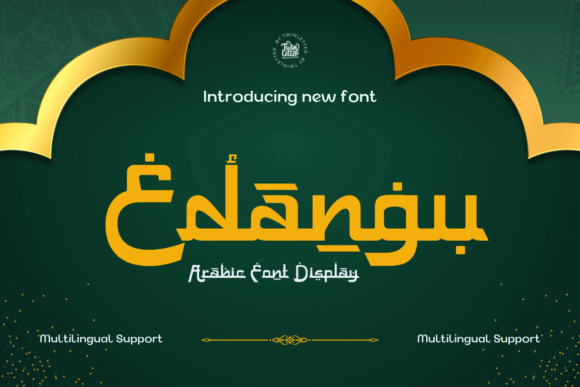
Embark on a typographic journey to the heart of Arabia with Edangu, a font family steeped in the rich heritage of Islamic calligraphy and Middle Eastern architecture. This exquisite display typeface will add an air of elegance and sophistication to your creative endeavors.
Step into a world of captivating beauty with Edangu's mesmerizing Kufic script, where each character dances with grace and precision. This font is a true testament to the artistry of the past, brought to life in a contemporary digital format.
With Edangu, you'll have the power to transform your designs into works of art. Its carefully crafted glyphs and ligatures, meticulously encoded for your convenience, will elevate your projects to new heights of visual appeal.
Imagine your brand adorned with the timeless elegance of Edangu. Its strong and striking forms will leave an unforgettable impression on your audience, whether you're crafting logos, posters, or social media graphics.
Unlock the gateway to a world of creative possibilities with Edangu, the font that seamlessly blends tradition with modernity. Its versatility knows no bounds, lending itself effortlessly to a wide range of design applications, from website headers to print advertisements.
Don't settle for ordinary when you can have extraordinary. Embrace the beauty of Edangu and let your creativity soar. This font is your gateway to a world of elegance, artistry, and boundless possibilities.